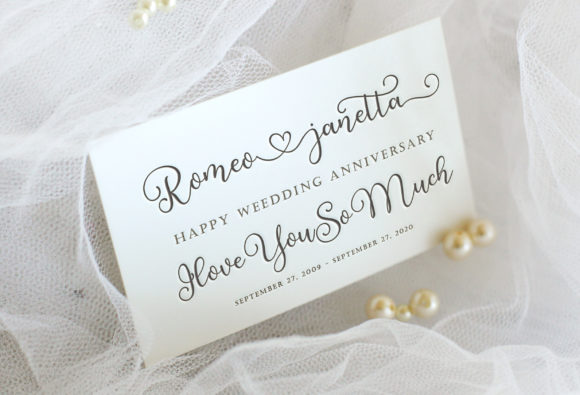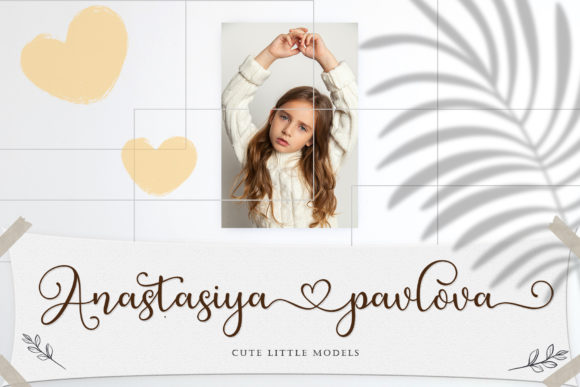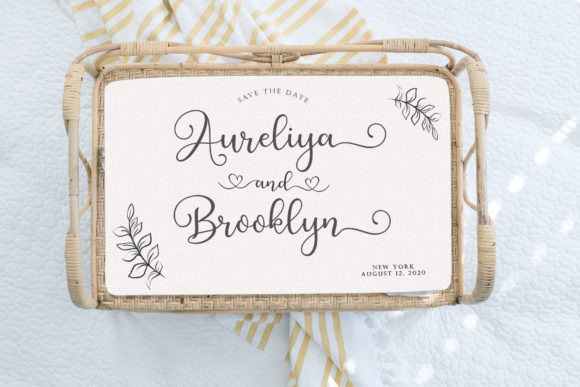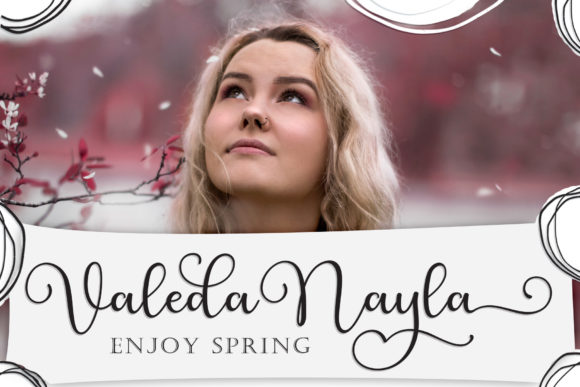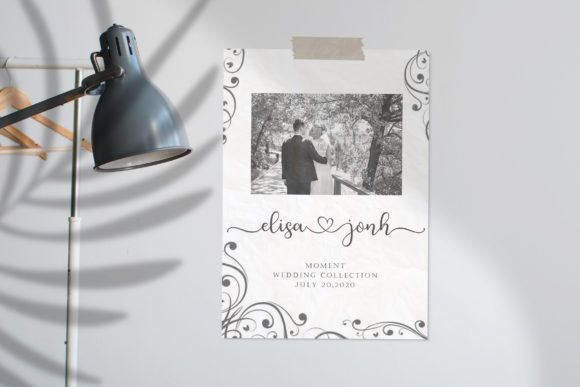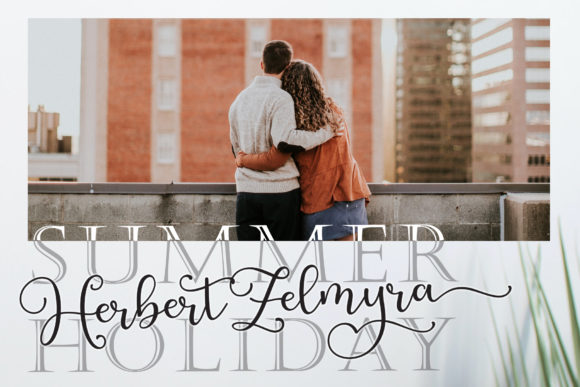
Introduction to Layla Layli Font Font
Fonts play a crucial role in design, and the Layla Layli Font font is a typeface that brings both character and versatility to any project. Whether you’re working on a branding project, a website, or a print design, the Layla Layli Font font offers a unique style that can elevate your work.
Layla Layli is an elegant and flowing handwritten font.
It is PUA encoded which means you can access all of the glyphs and swashes with ease It features a varying baseline, smooth lines, gorgeous glyphs and stunning alternates.
Key Features of Layla Layli Font Font
Why Choose Layla Layli Font Font?
The Layla Layli Font font is more than just a typeface – it’s a design tool that helps you communicate your message with style and clarity. Its unique character set and versatile design make it suitable for a wide range of applications, from elegant invitations to bold headlines.
With its carefully crafted letterforms and balanced proportions, the Layla Layli Font font ensures readability and visual appeal across all mediums.
What makes Layla Layli Font font special?
The Layla Layli Font font stands out with its unique design, exceptional readability, and versatility across various design applications.